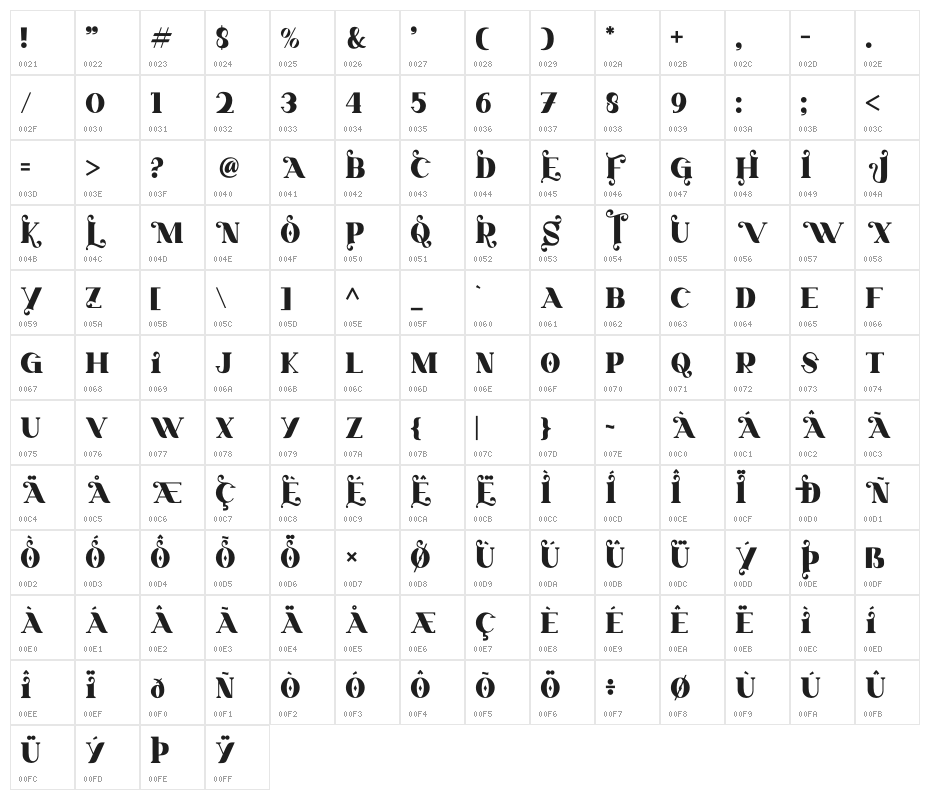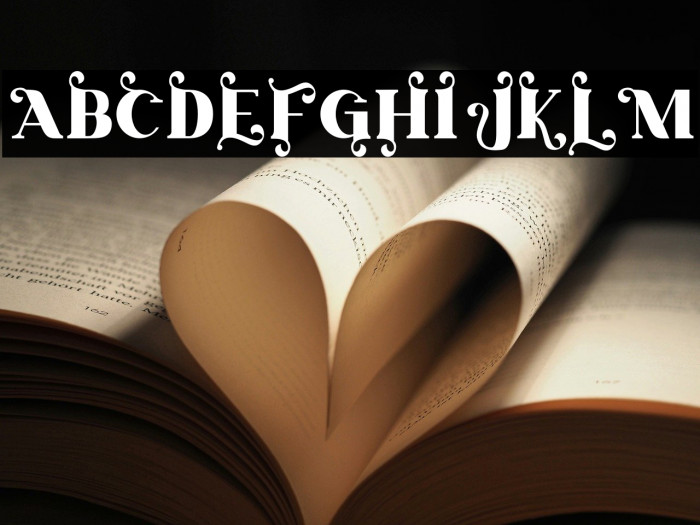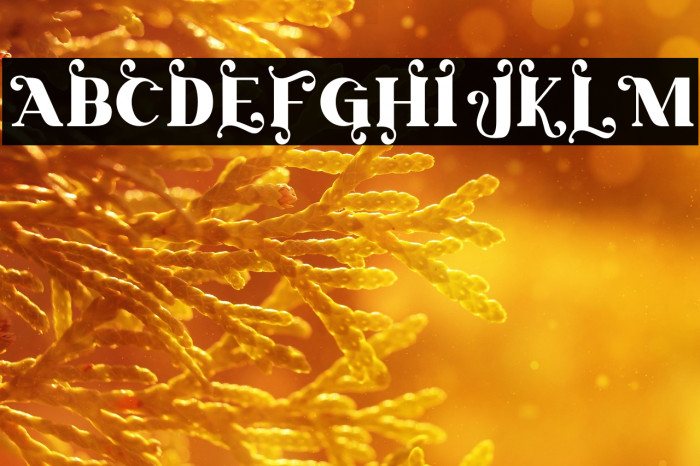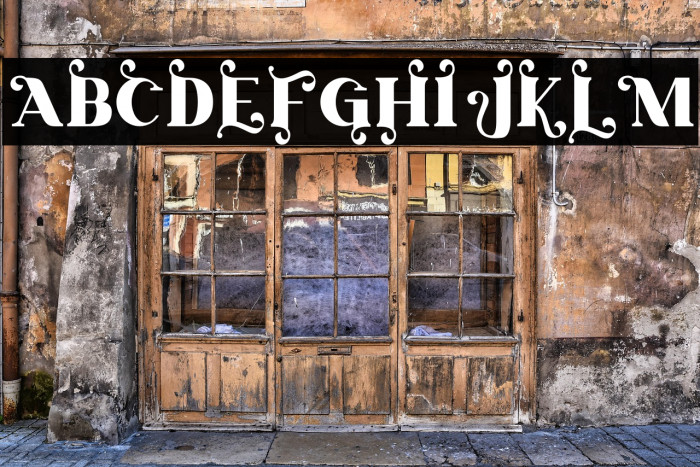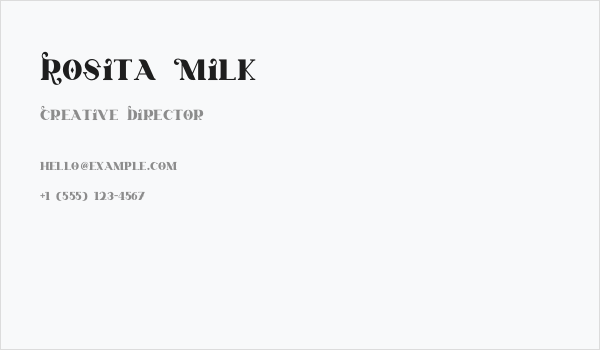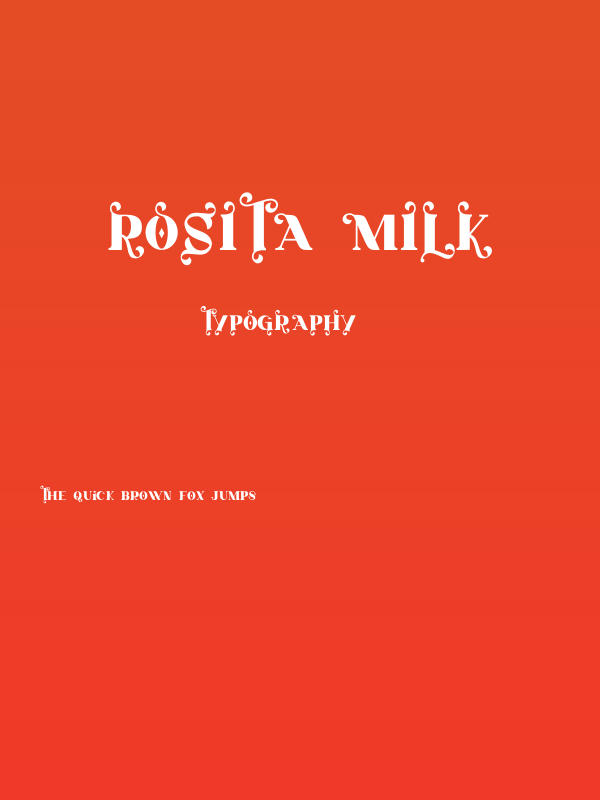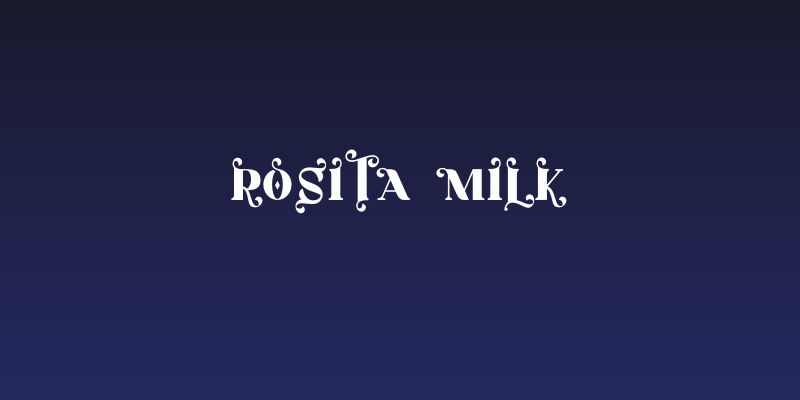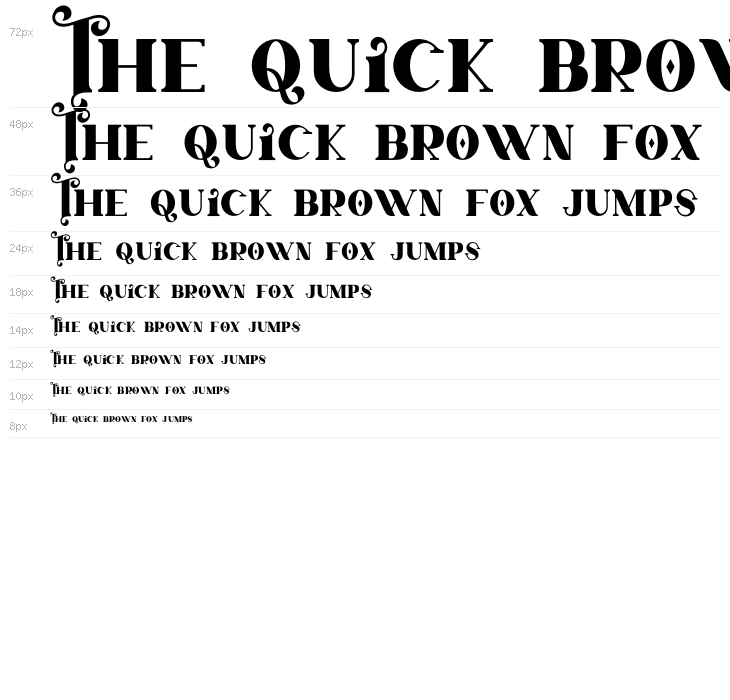
Rosita Milk Font
Rosita Milk Description
This font features a bold and decorative style with unique, ornate serifs that add a whimsical touch to each character. The uppercase letters are particularly striking, with flourishes that extend from the main strokes, creating a playful yet sophisticated appearance. The numerals and special characters maintain this decorative theme, ensuring consistency across all glyphs. The font's bold weight and high contrast between thick and thin strokes make it highly legible while retaining its artistic flair. Its distinct personality makes it suitable for creative projects that require a touch of elegance and uniqueness.